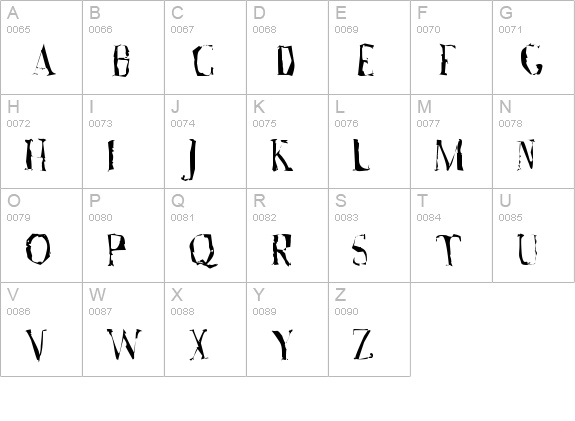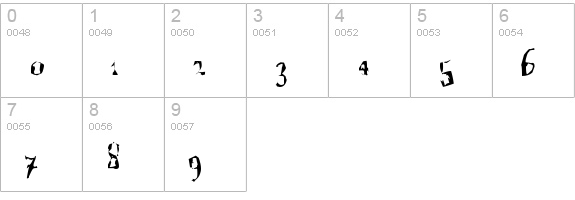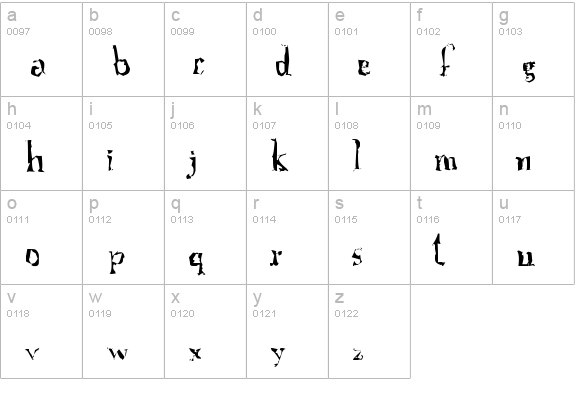
A Font with Serifs. Disordered Font Details
Introducing the captivating and distinct font with serifs - Disordered. This remarkable typeface effortlessly combines the timeless elegance of serifs with a touch of unconventional chaos, resulting in a truly unique and eye-catching design. Disordered font breaks away from the traditional norms, offering a refreshing and innovative take on typography. Each letter is meticulously crafted to showcase a deliberate disorder, allowing for a dynamic and unpredictable visual experience. The serifs, instead of conforming to a rigid structure, gracefully dance and sway, adding an element of whimsy and unpredictability to every character. This font is a true testament to the power of artistic expression, as it effortlessly captures attention and sparks curiosity. Its disordered nature invites viewers to explore the unconventional, making it an ideal choice for creatives who want to stand out from the crowd and make a bold statement. What's even more exciting is that Disordered font is available for free download at FontsMarket.com. Now, you can fully embrace the charm and versatility of this remarkable typeface without any barriers. Whether you're a designer looking to add a touch of creativity to your projects or an individual seeking a distinct and mesmerizing font for personal use, Disordered font is the perfect choice. Download Disordered font today from FontsMarket.com and unlock the endless possibilities of this captivating and freely available typeface. Let your imagination run wild as you experiment with its disordered serifs, creating visually stunning designs that will leave a lasting impression. Embrace the unconventional and embrace the beauty of Disordered font.